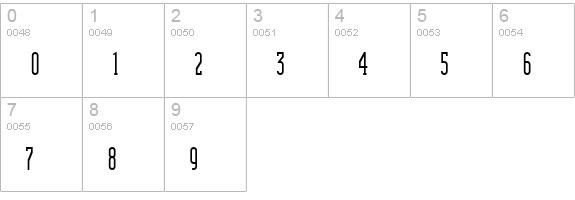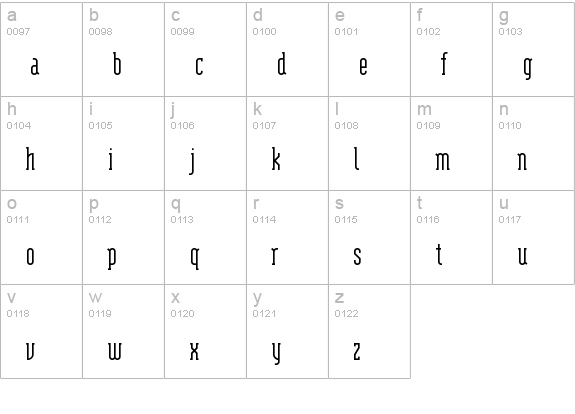
ModulaSerif Regular Font Details
ModulaSerif Regular is the standard, neutral variant in the ModulaSerif typeface family \xE2\x80\x94 well suited to general body text, paragraphs, and standard typographic work.
ModulaSerif Regular font is a versatile and elegant typeface that combines classic serif elements with a modern twist. Its clean lines and balanced proportions make it perfect for a wide range of design projects, from elegant invitations to professional documents. This font is the ideal choice for those looking to add a touch of sophistication and style to their work. With its timeless appeal and readability, ModulaSerif Regular font is sure to make a lasting impression on any audience. Best of all, ModulaSerif Regular font is available for free download at FontsMarket.com, making it easily accessible to anyone looking to enhance their design projects with this beautiful typeface. Don't miss out on the opportunity to elevate your work with the timeless elegance of ModulaSerif Regular font.